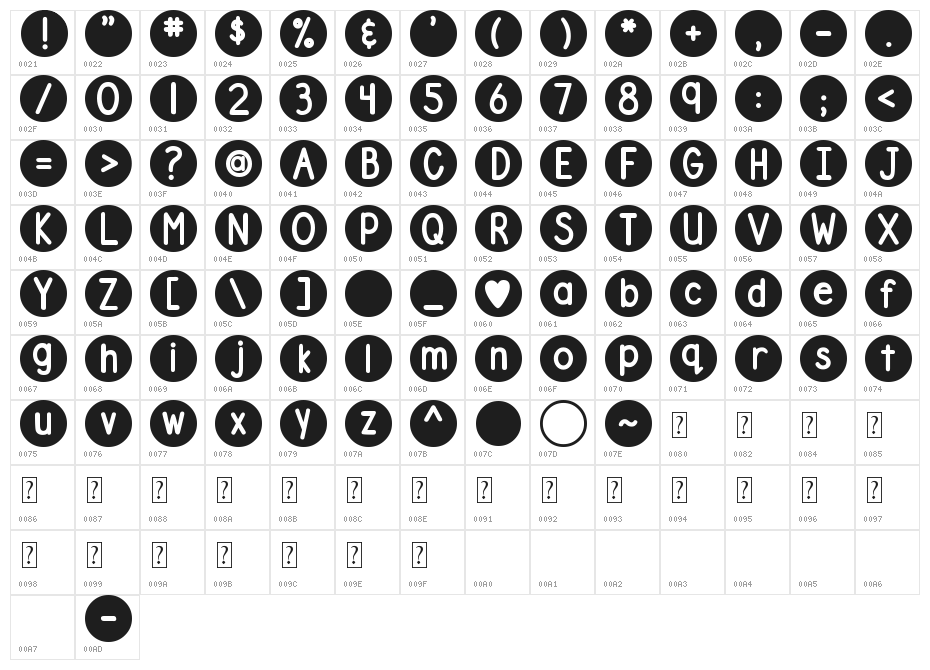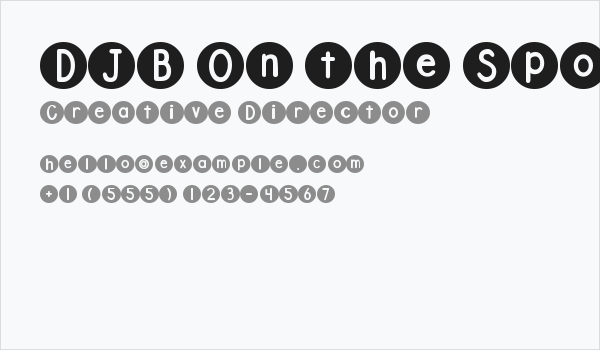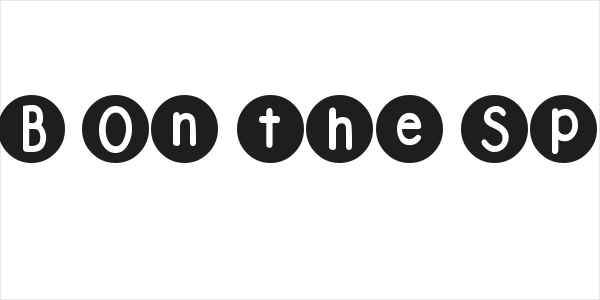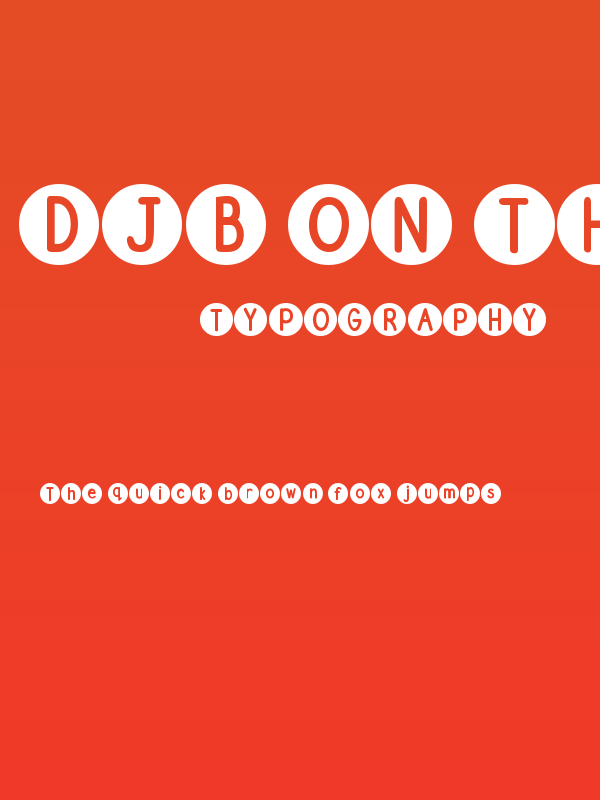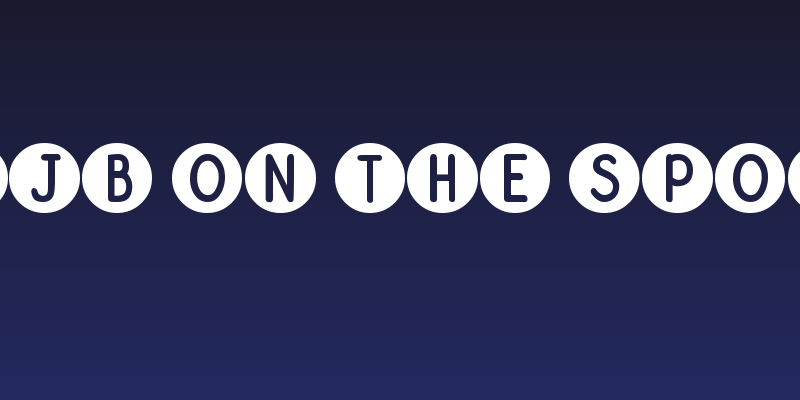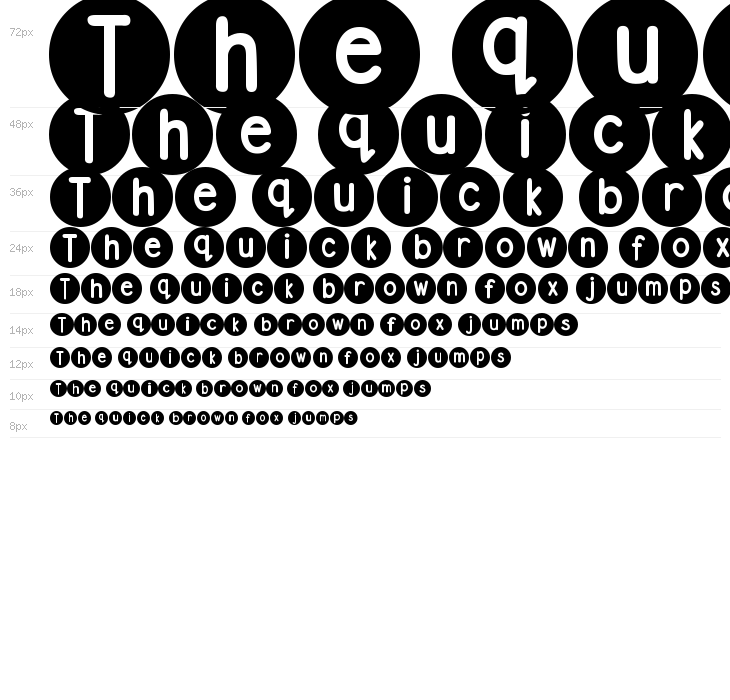
DJB On the Spot Font
DJB On the Spot Description
This playful and bold font features characters enclosed in solid black circles, creating a striking and unique visual effect. The letters are sans-serif with a slightly rounded and informal style, giving them a friendly and approachable appearance. The uppercase and lowercase letters maintain consistent proportions, while the numerals and special characters are designed to match the overall aesthetic. The font's distinctiveness lies in its circular background, which adds a decorative touch and makes it stand out in various design contexts. Its clear and legible form ensures readability despite the bold design.
| Overall Style | Playful, Decorative |
| Proposed Projects | Ideal for children's books, playful branding, posters, and creative invitations. |